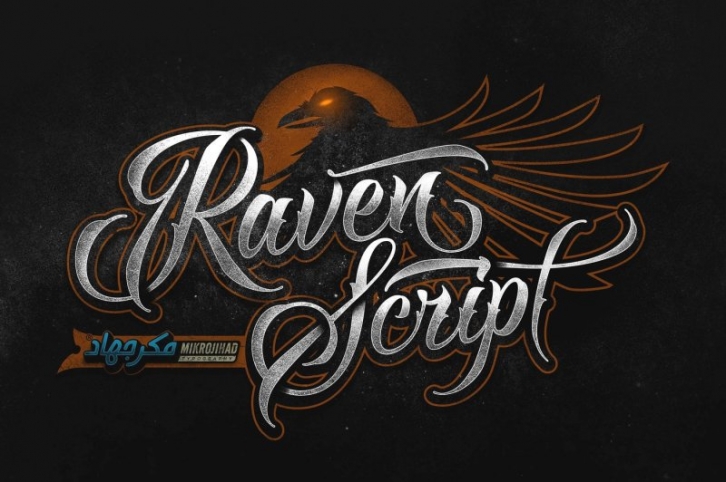
Very inspired from The Raven Wings.
623 Glyphs with total 445 Alternates Glyphs.
Support Stylistic Alternates, Contextual Alternates, Swashes/Swooshes Alternates, Standard Ligatures and Stylistic Set ( SS01-SS30).
Note that this font is built with Opentype technology.